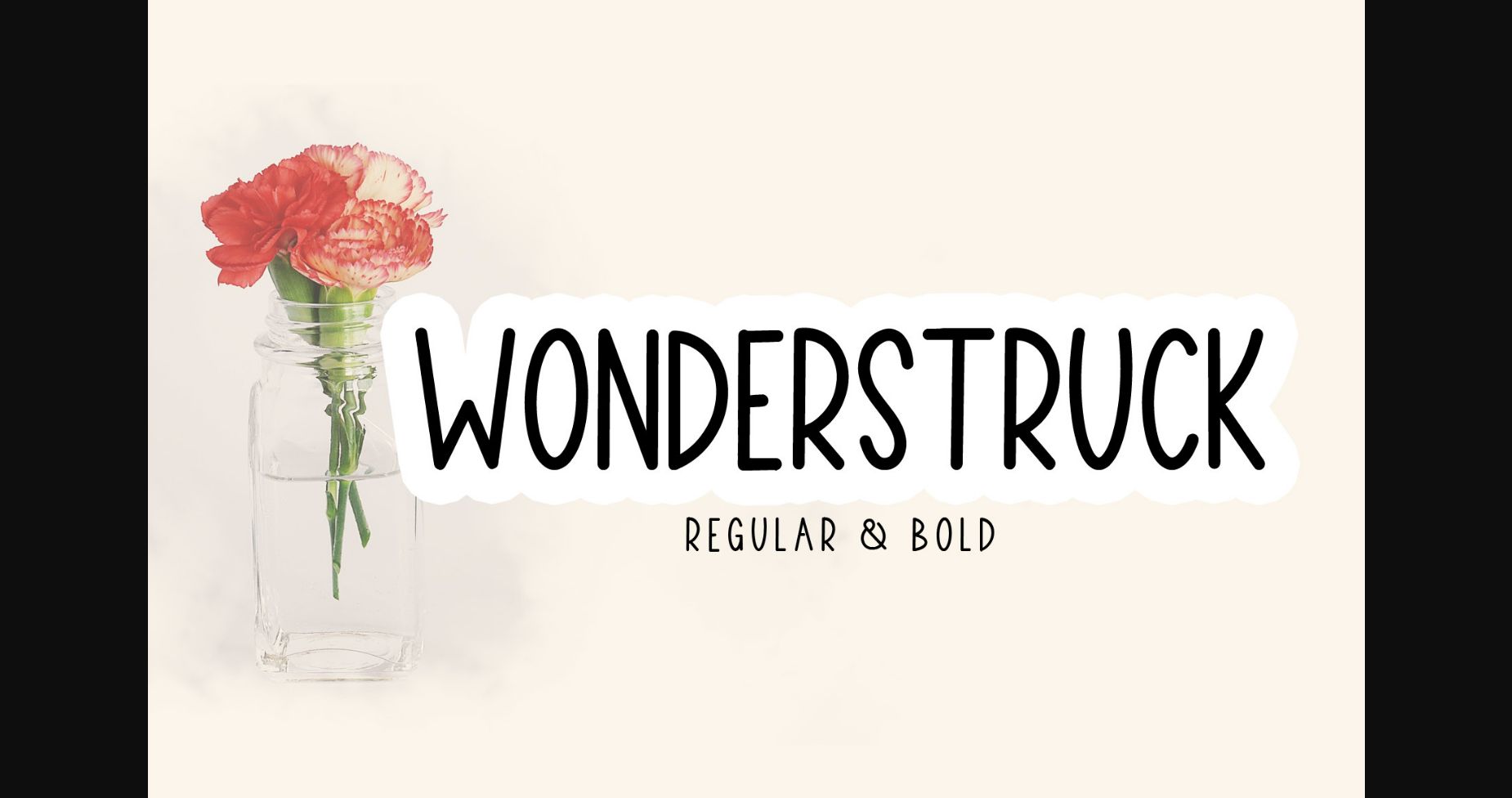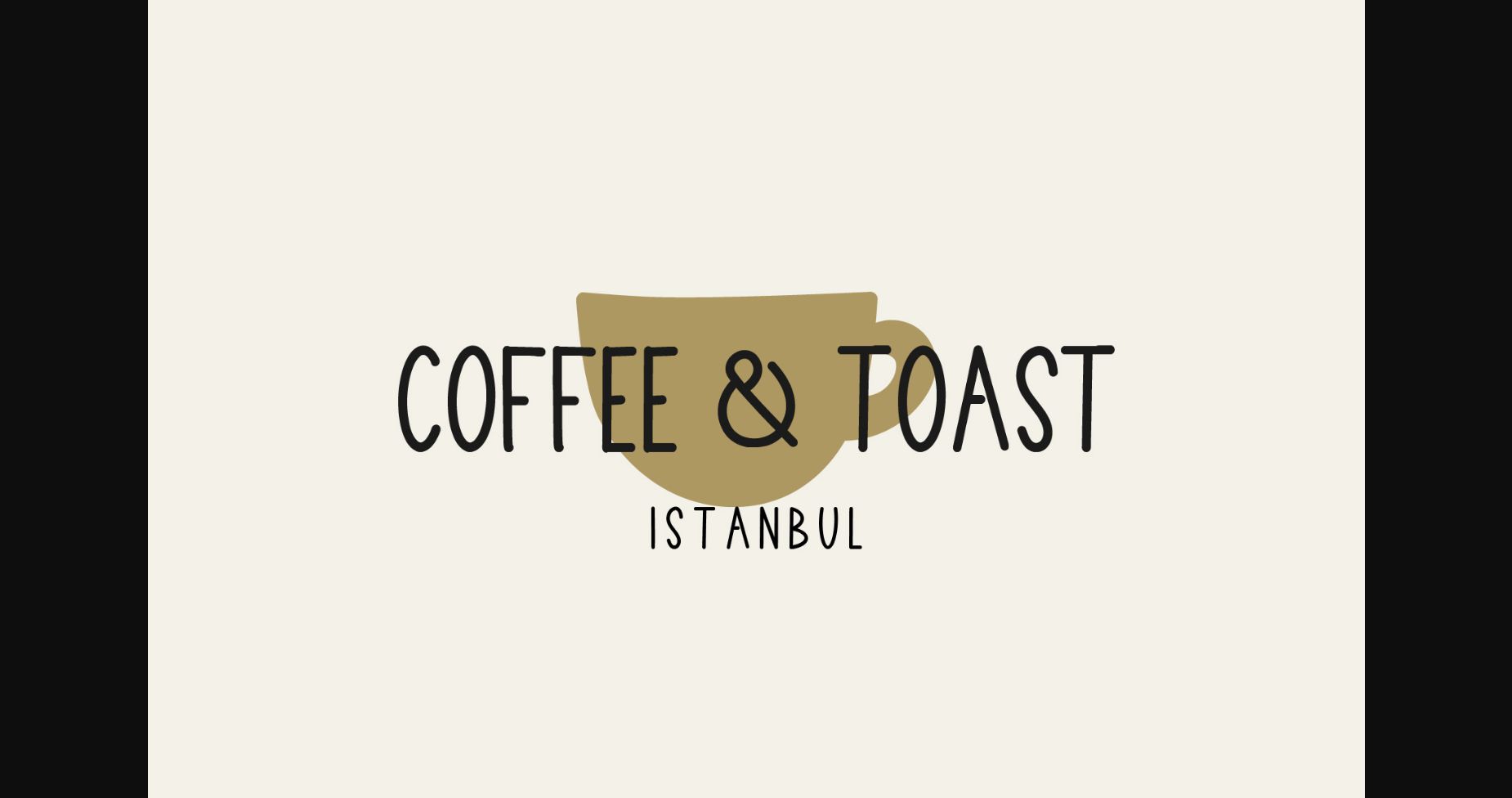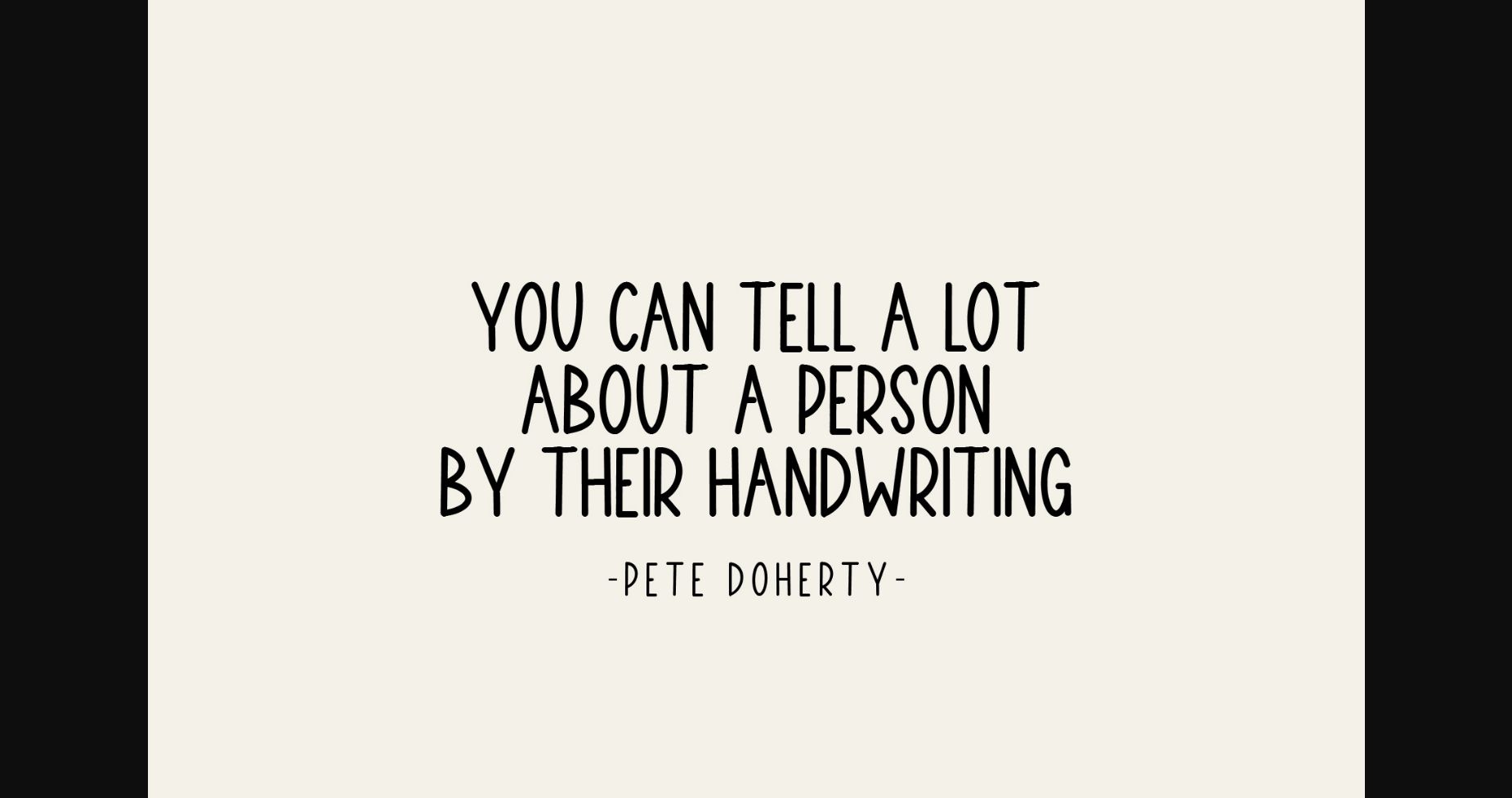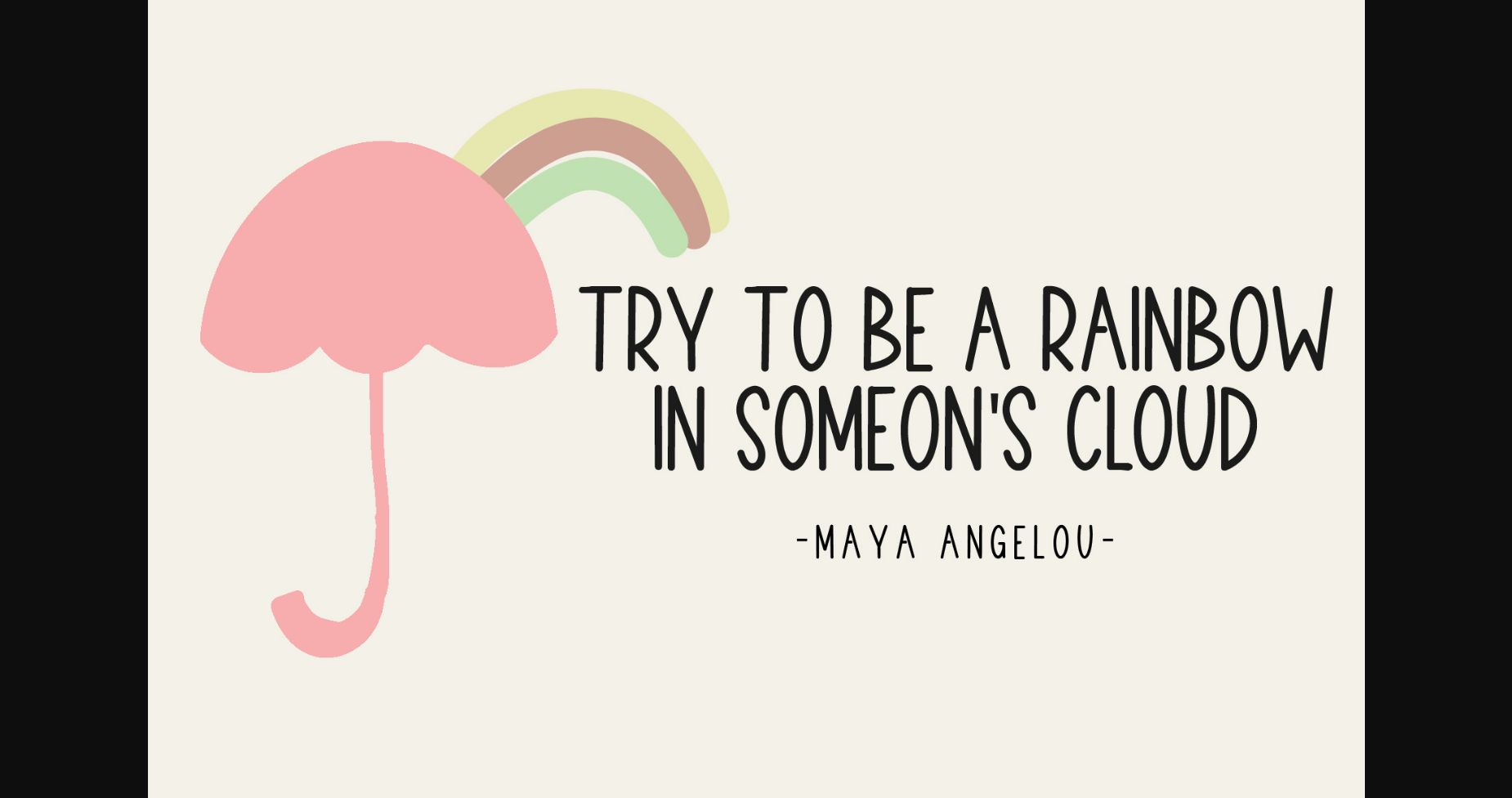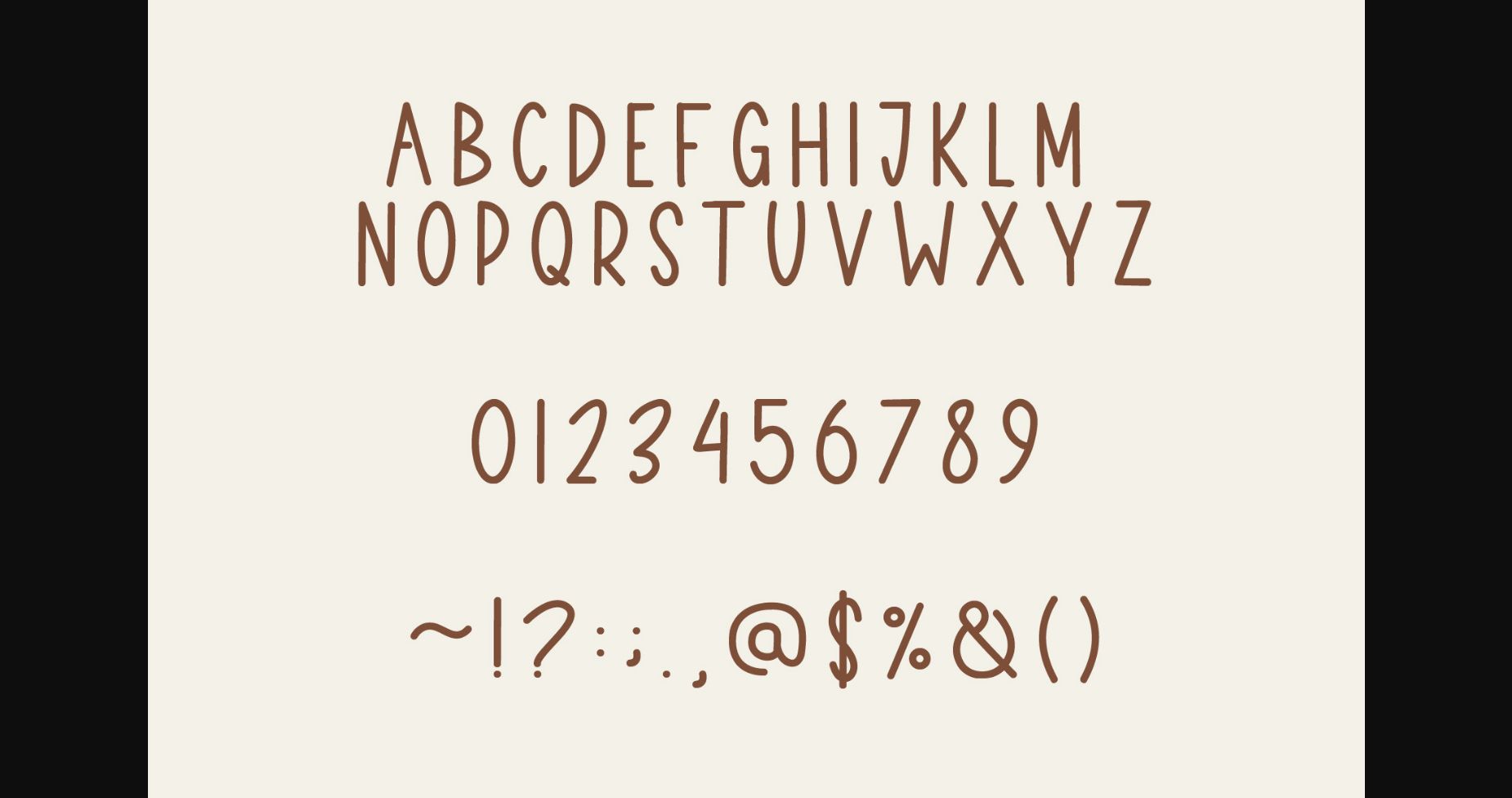
HomeSans Serif FontsWonderstruct Font Sans Serif Fonts Wonderstruct Font FacebookXPinterestWhatsApp 1 of 7 ... Wonderstruct Font Poster 2... Wonderstruct Font Poster 3... Wonderstruct Font Poster 4... Wonderstruct Font Poster 5... Wonderstruct Font Poster 6... Wonderstruct Font Poster 7... About Wonderstruct Font Wonderstruck is a cool and neat sans serif font. Whatever the topic, this font will be a wonderful asset to your font library, as it has the potential to enhance any creation. DOWNLOAD NOW People also explored Egrando Font Geralita Font Handmade Tropical Love Font Modwilles Font Blackcats Font Making Easier Font Starglass Font Majesty Font 312 0 TagsWonderstruct Font Previous articleFavter FontNext articlePumpkin Spice Font LEAVE A REPLY Cancel reply Comment: Please enter your comment! Name:* Please enter your name here Email:* You have entered an incorrect email address! Please enter your email address here Website: Save my name, email, and website in this browser for the next time I comment. Personal Use Free Messy Personal Use Free Read more about this font Snaily Personal Use Free Read more about this font Browie Personal Use Free Read more about this font Nikoleta Personal Use Free Read more about this font BLOG Fonts That Capture the Spirit of New York City New York City is more than just a place—it’s an experience, a rhythm, a visual language... Transform Your Website: Elevate Your Typography with 7 Best Web Font Generators Elegant Wedding Invitation Fonts – Handwritten & Script Fonts Exploring Font Trends